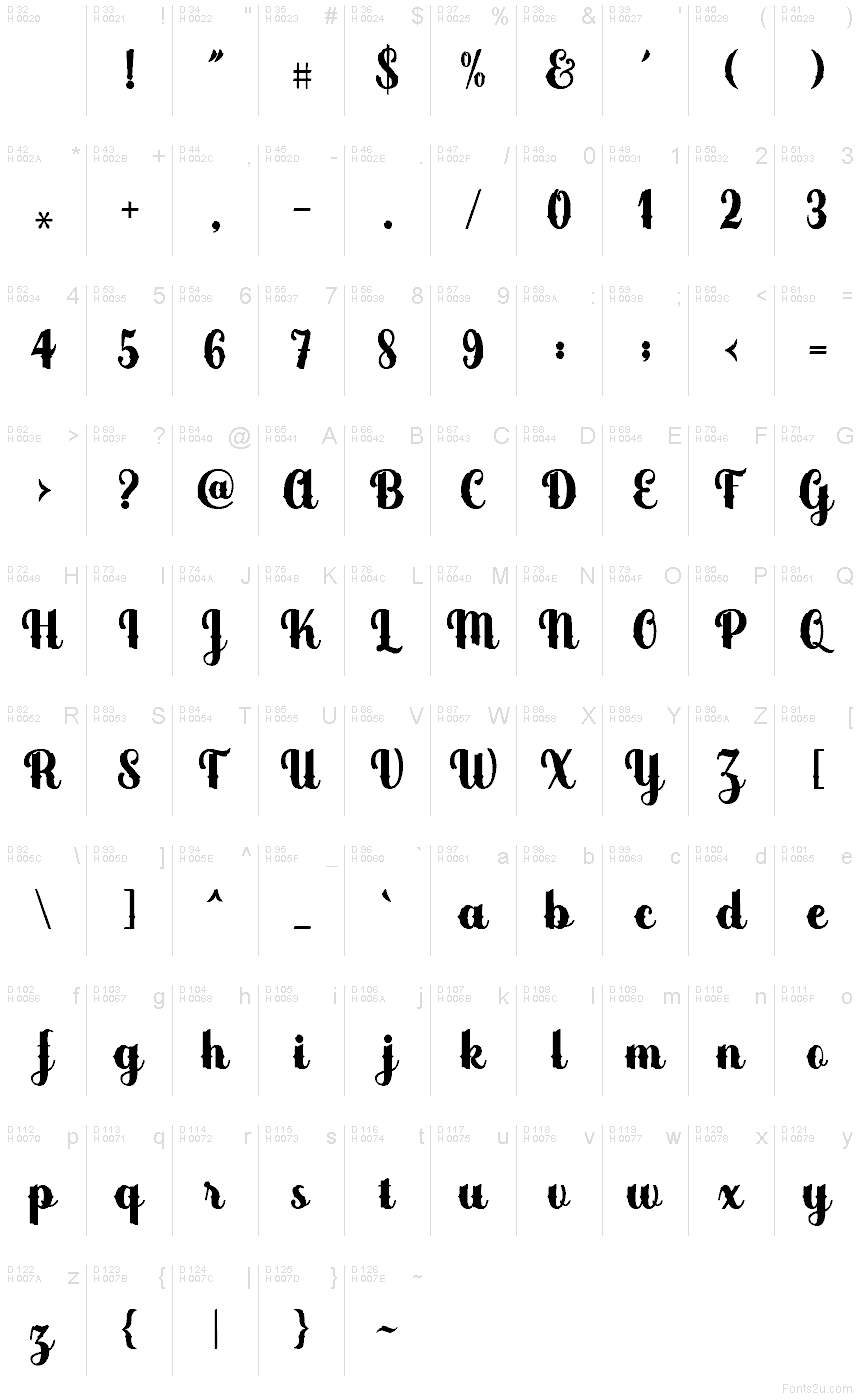
Blackblink
Blackblink font by Akifatype Studio is a free retro display typeface. Its heavy, inky strokes are carved with petal-shaped cutouts that catch the eye like glittering highlights, turning each word into a bold, swirly emblem. The curves feel lush and tactile—think velvet posters and hand-painted shopfronts—with confident rhythm and juicy swashes that stay readable even when tightly set.
Using Blackblink, headlines snap to attention and carry a rich vintage mood without slipping into kitsch. It shines on album covers, festival branding, boutique logos, coffee packaging, apparel prints, and bar or café signage. Set it big to let those scalloped details breathe, and pair with a clean, neutral sans for body text to keep the message crisp. This free font adds instant character wherever it lands.